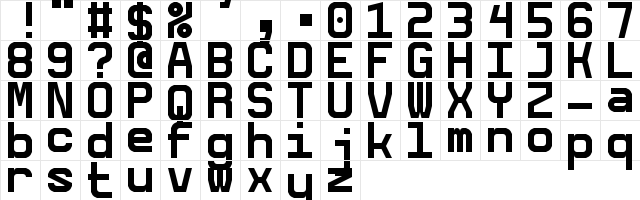
5Ceta Mono Regular
| Designer | Noah - 10 year old typomaniac |
Design Context for 5Ceta Mono Typeface
5Ceta Mono uses fixed-width spacing throughout, giving it the structured, systematic character associated with coding environments and technical documentation.
Pro Tip: Use 5Ceta Mono with slightly increased line-height for extended reading — fixed-width spacing can feel dense in longer passages without extra breathing room.